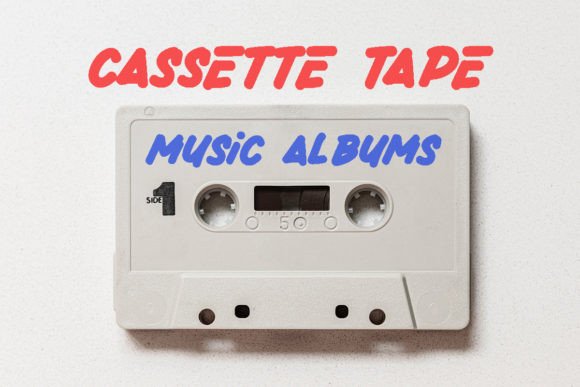
Active Marker Font
Active Marker is inspired by the idea of handwritten chalkboard signs in restaurants, bars, shops, or on the market. This authentic marker font comes with interesting ligatures without the cheap feeling and boring recurring letters. This font is PUA encoded, which means you can access all of the glyphs and swashes with ease!